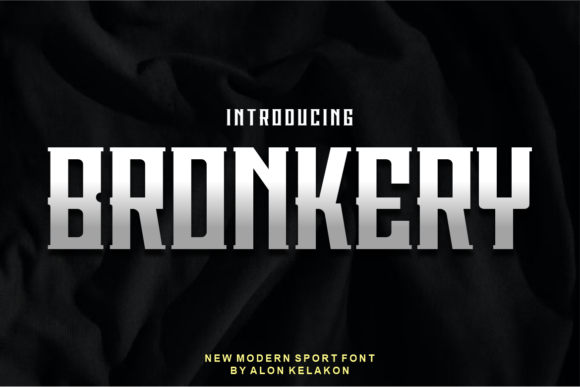
Prepare to be mesmerized by Bronkery Font, a display font that will captivate your designs! Its unique and alluring letterforms possess an extraordinary ability to transform any project into a visual masterpiece.
Crafted by the ingenious mind of alonkelakon, Bronkery Font is meticulously designed to enhance any creation. Its bold and enchanting presence makes it the perfect choice for projects where legibility and impact are paramount.
Immerse yourself in the world of creative possibilities with Bronkery Font. Whether you're designing captivating logos, alluring posters, or stunning websites, this font will elevate your work to unprecedented heights. Its versatile nature empowers you to express your creativity in limitless ways, leaving a lasting impression on your audience.
Indulge in the beauty of Bronkery Font today and witness the transformation of your designs. Its exceptional letterforms will captivate your imagination, unlocking a world of creative possibilities where your ideas take center stage. Embark on this typographic journey and let Bronkery Font guide you towards design excellence.